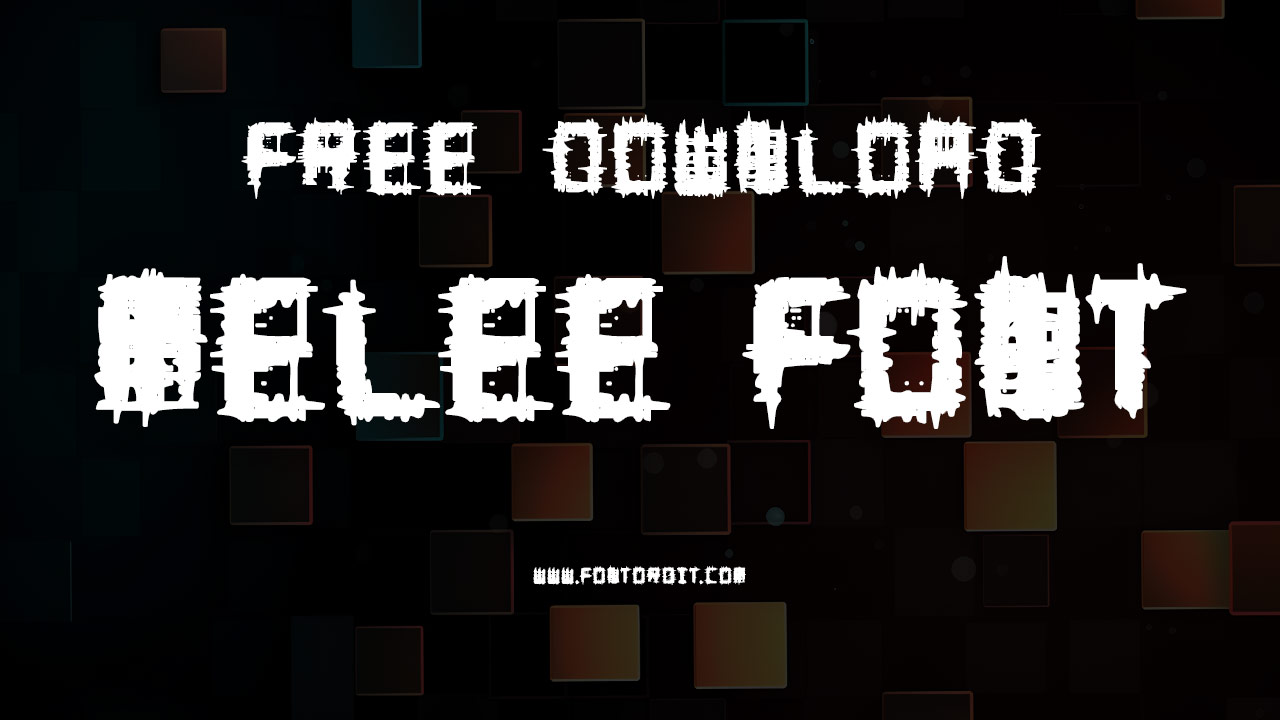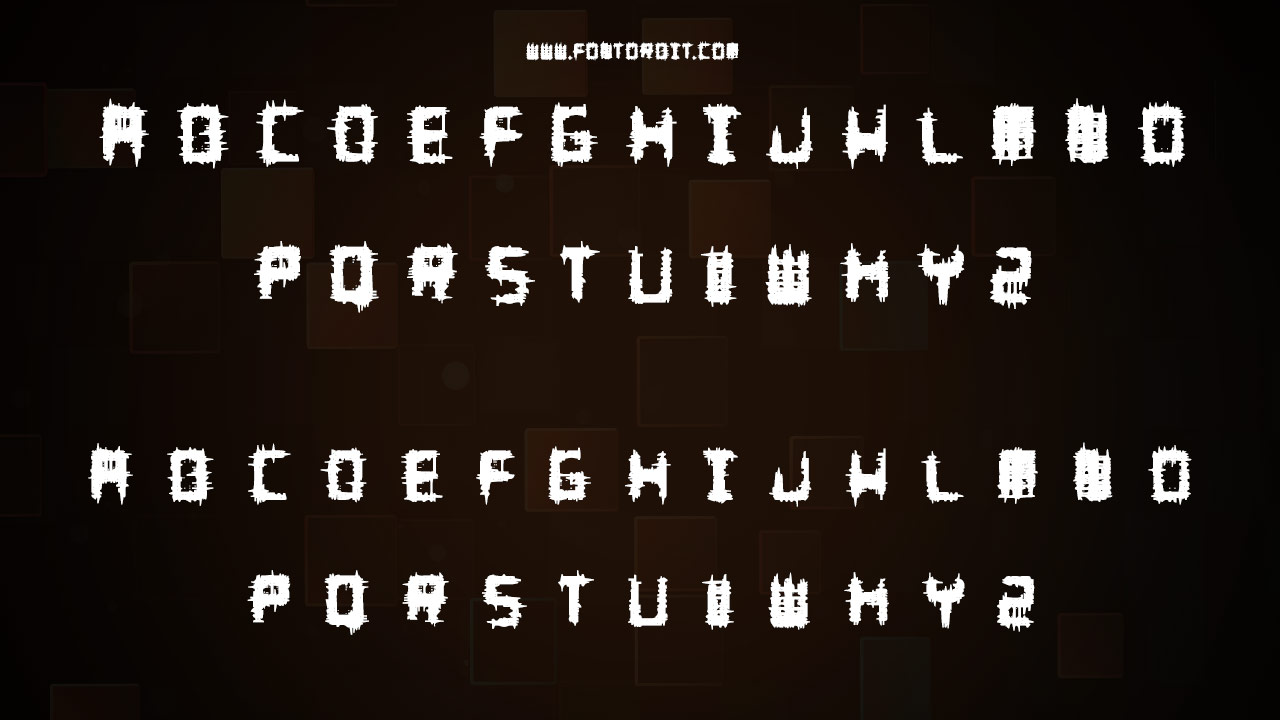
Melee Font is a distinctive and edgy typeface created by Bionic Type. Designed to make a bold statement in both text and display uses, Melee offers a unique, distorted look that is perfect for creative applications. This typeface is ideal for various design projects, including headlines, branding, and artistic overlays.
Melee Font falls into the category of etched display typefaces, known for its irregular and striking design. Specifically, it is characterized by its distorted style, providing a fresh, contemporary aesthetic. The Melee font family includes:
Melee
The Melee Font Found In Use
- Logo design
- Packaging
- Promotional materials
- Artistic text overlays on images
- Clothing and merchandise graphics
Melee Font is extensively used in creative projects that require a modern, eye-catching typeface. It works exceptionally well in branding, packaging, and promotional materials where a striking appearance is needed. Thanks to Bionic Type, the font is available for free for both personal and commercial use.
Melee Font is a contemporary display typeface perfect for a variety of creative uses. It’s ideal for making headlines stand out, enhancing branding materials, and adding an edgy touch to any design project. Whether for personal or commercial use, Melee is a versatile choice that brings a unique, modern edge to your work.
Melee Font is an etched display typeface with a distorted design. Its unique style makes it versatile for various design needs.
Ensure the font aligns with your brand’s edgy and contemporary aesthetic. Melee Font is ideal for brands seeking a bold, artistic look but may not suit more traditional themes.
Its distorted and bold design might not convey a sense of elegance or subtlety and may not be suitable for designs requiring a more classic or refined look.
Melee Font features a unique, distorted design with a bold character, while other display fonts may have varied stylistic elements, such as more traditional or playful characteristics.
Users typically seek a bold, distinctive typeface that provides an edgy and modern look for a range of design projects, from branding to promotional materials.
If desired, use graphic design software to apply a distressed texture or effect to give the font a worn or vintage appearance.
Edgy, distorted, and bold styles are popular, offering a unique and contemporary look suitable for a wide range of design applications.